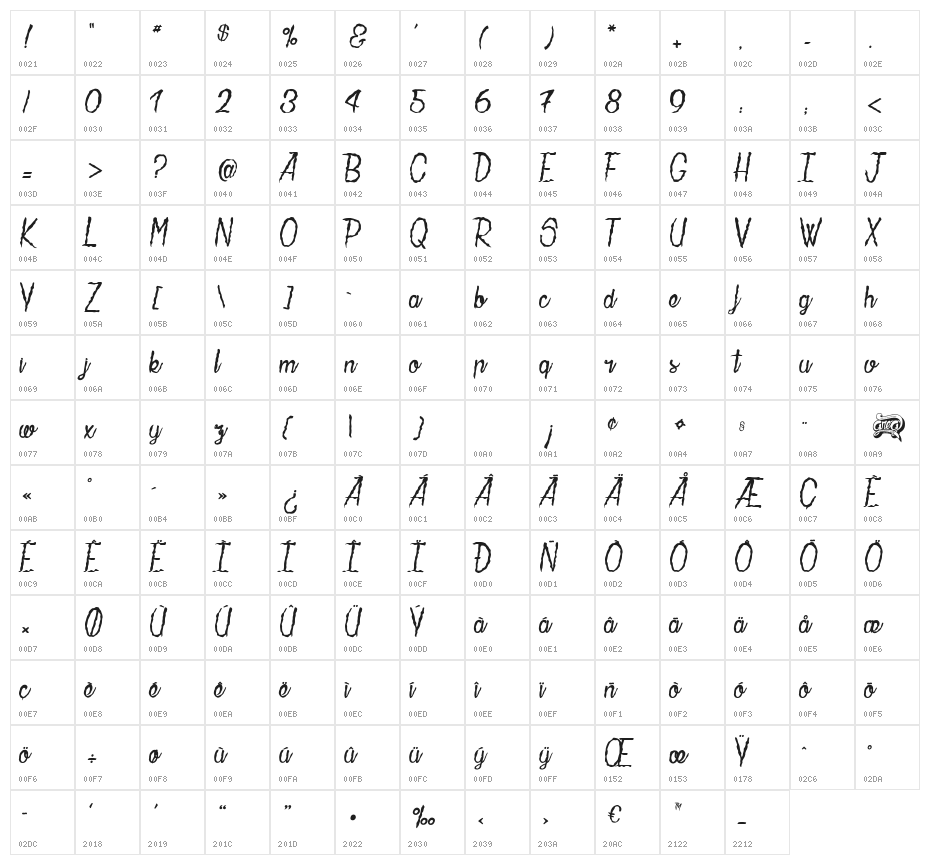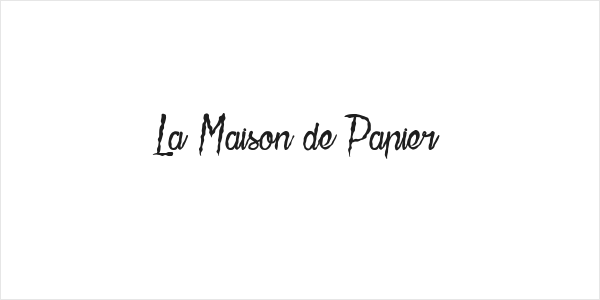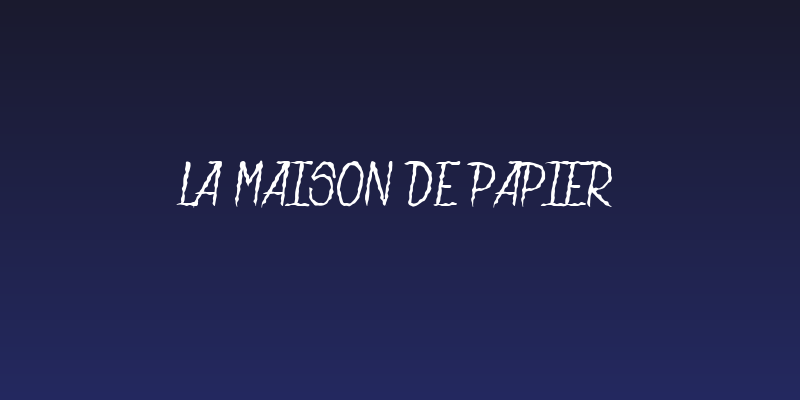
La Maison de Papier Font
La Maison de Papier Description
This font features a unique, hand-drawn style that mimics the appearance of ink or paint strokes. The uppercase letters are bold and slightly irregular, giving them a dynamic and energetic feel. The lowercase letters maintain a consistent flow, with some characters extending below the baseline, adding to the organic look. Numbers are bold and maintain the same hand-drawn aesthetic, making them stand out. Special characters are creatively designed, fitting seamlessly with the overall style. This font's distinct appearance makes it ideal for projects that require a personal touch or an artistic flair.
| Overall Style | Artistic, Handcrafted |
| Proposed Projects | Ideal for artistic projects, posters, album covers, and branding that requires a personal or creative touch. |